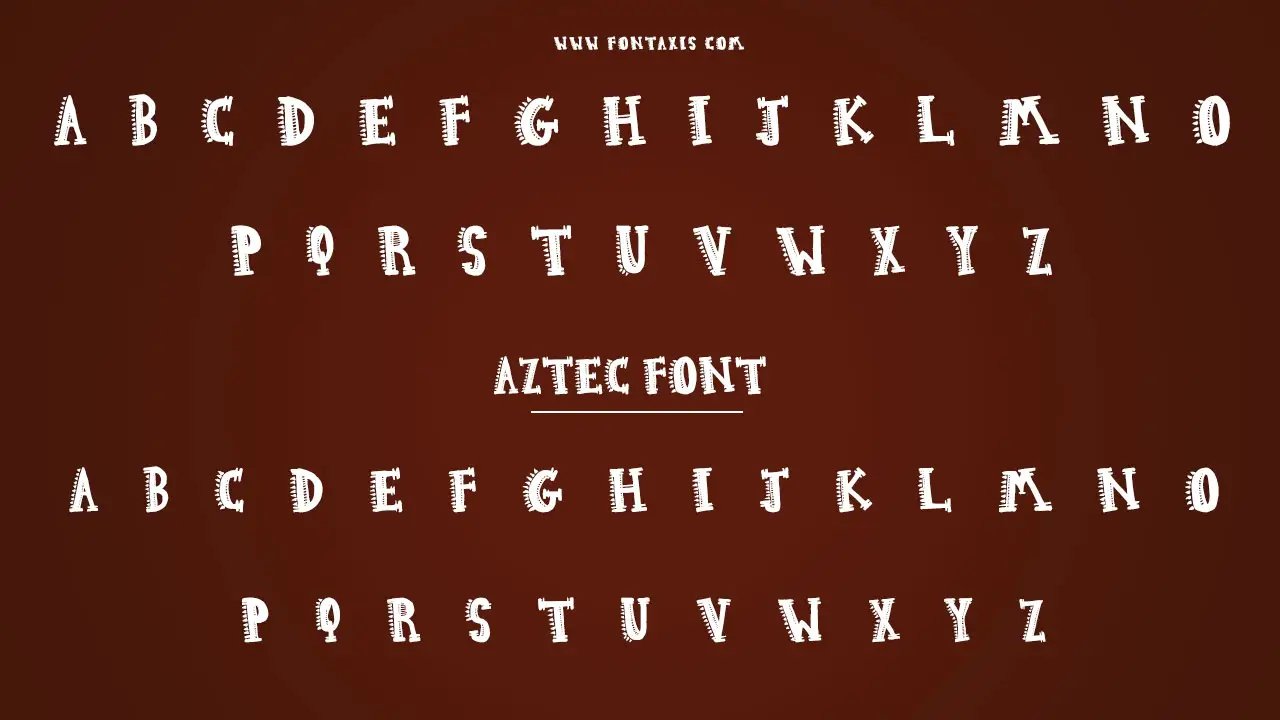
The Aztec font, created by Vladimir Nikolic, offers a unique and dynamic style perfect for bringing a bold, ancient flair into modern designs.
- Branding: Perfect for creating a logo that reflects Aztec culture or Native American influence.
- Posters: Suitable for ancient civilization or tribal ornament posters, especially those featuring red ink or calligraphy fonts.
- Website Designs: Ideal for headlines and banners that need a bold, uppercase character font.
- Illustration: Great for graphics or designs involving symbols, especially Aztec barcodes or motifs like Mexican ornaments.
- Flyers: Works well for flyers celebrating cultural events or tribal ornament designs.
- Magazine Covers: Perfect for a magazine or review layouts, adding a modern yet old-school look to text and headlines.
- Design Projects: Ideal for design projects incorporating geometric font or requiring Aztec soul to inspire the visual aspect.
- Aztec Font + Sans Serif Fonts: The bold, geometric structure of the Aztec font pairs well with clean sans serif fonts for modern designs that still capture cultural influence.
- Aztec Font + Calligraphy Fonts: Combining Aztec fonts with calligraphy fonts can bring out the decorative aspects, adding a tribal ornament feel to headlines or logos.
Aztec Font is perfect for projects that require an Aztec-inspired design, including logos, posters, websites, and flyers. Its geometric shapes and bold strokes are ideal for branding or events celebrating cultural themes or historical eras. You can use it for marketing campaigns, social media graphics, and website headers that need an authentic or vintage vibe. It’s particularly effective for designs related to themed events, art exhibitions, or adventure-related products.
The Aztec Font stands out because its distinctive geometric design blends ancient motifs with a modern twist. The font’s sharp, angular letterforms are reminiscent of Aztec architecture, offering a unique cultural aesthetic.
The font combines clean lines with intricate patterns, making it both stylized and readable. This design choice makes the font a fantastic option for projects that need to evoke heritage, mystery, and adventure, while still maintaining a contemporary and dynamic style.